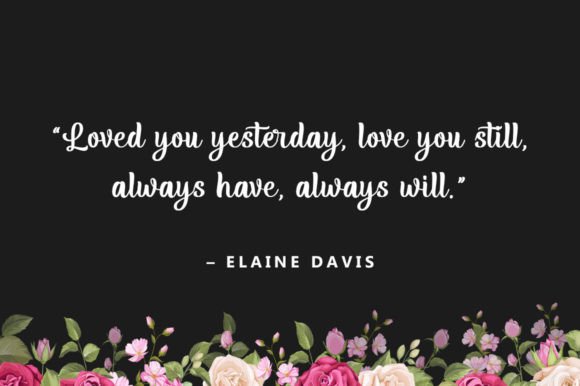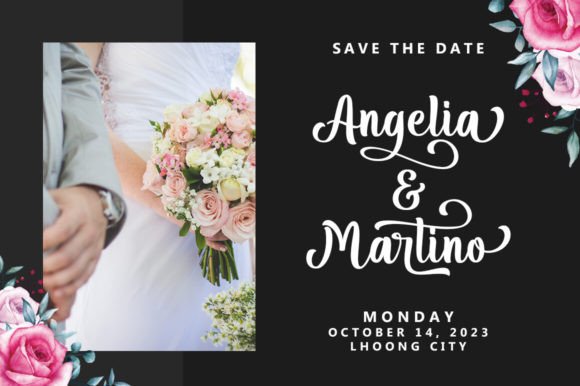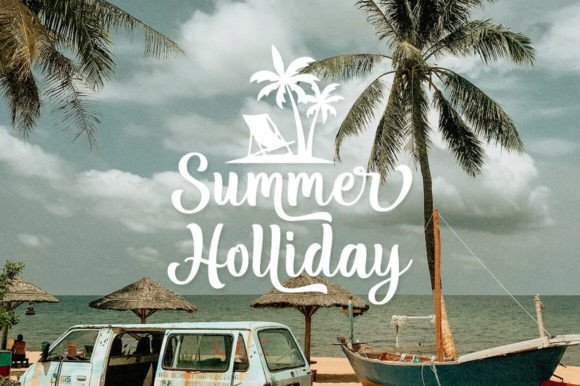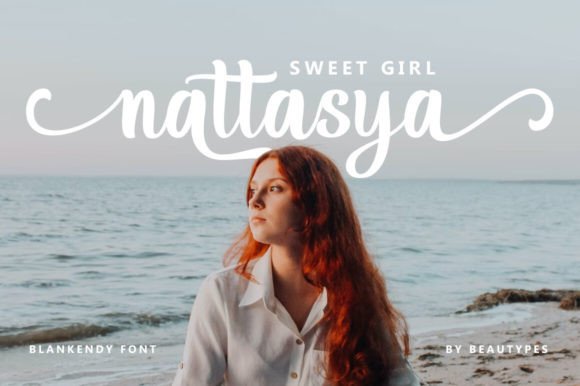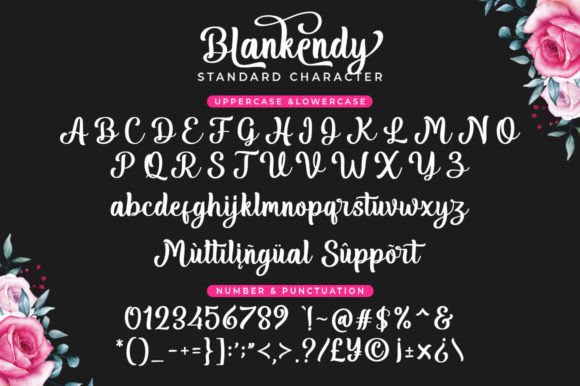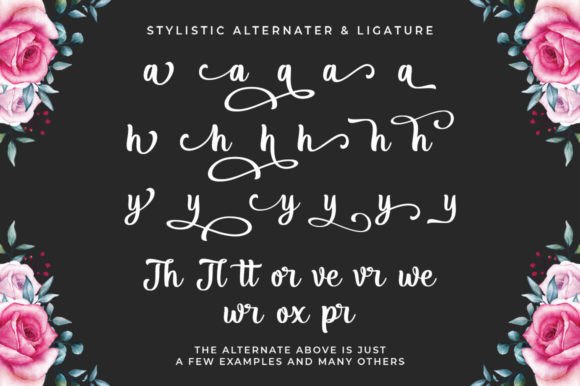
The Perfect Script: Unlocking the Charm of the Blackendy Font
Have you ever stumbled upon a font that instantly makes you feel like picking up your pen and writing a heartfelt letter to a loved one? That’s exactly what happened to me when I first laid eyes on the Blackendy Font. Its sweet and friendly handwritten style is so inviting, it’s hard not to get carried away with creative ideas.
As it turns out, Blackendy Font is more than just a pretty face – it’s a versatile tool designed to add a fresh and neat touch to any design project. Whether you’re crafting wedding invitations, cards, or simply looking to inject some fun into your branding, Blackendy Font is the perfect companion. For designers, this font is a valuable asset that can elevate your work and make it stand out from the crowd.
Blackendy Font Key Features
- Unique Characteristics: Blackendy Font features a unique blend of modern and vintage elements, with intricate details and subtle texture, making it perfect for creating eye-catching and sophisticated designs.
Blackendy Font Review
Overall, I think the Blackendy font has some interesting aspects, but it also has some areas where it falls short. ✨
- Unique aesthetic: The Blackendy font has a distinctive, avant-garde look that can be great for making a statement in designs.
- High contrast: The bold, black lines against a subtle background create a striking visual effect.
- Customization options: The font seems to offer some flexibility in terms of font sizes and styles, which is always a plus.
- Legibility issues: At smaller font sizes, the Blackendy font can be difficult to read, especially for body text.
- Limited versatility: The font’s unique look can be overwhelming in certain contexts, making it less suitable for more conservative designs.
- Font weight inconsistencies: I noticed some variations in font weight, which can be jarring in certain situations.
Overall, I think the Blackendy font is best suited for designs where a bold, eye-catching statement is desired. However, its limitations make it less suitable for more nuanced or complex designs. ⚠️
Blackendy Font is ideal for use in designs that require a bold, edgy, and modern look. Use it for headings, titles, and other prominent text elements to add a touch of sophistication to your designs. Some common use cases include:
- Graphic design and visual arts